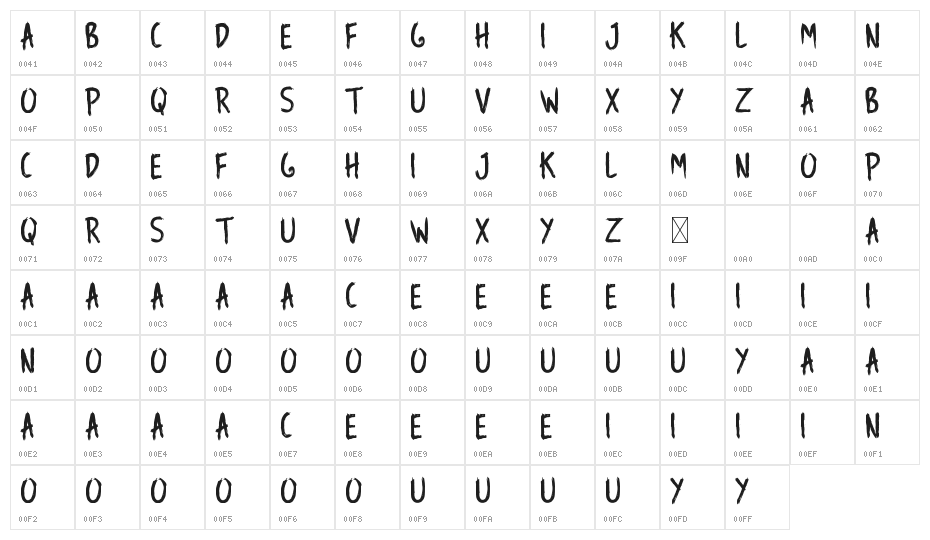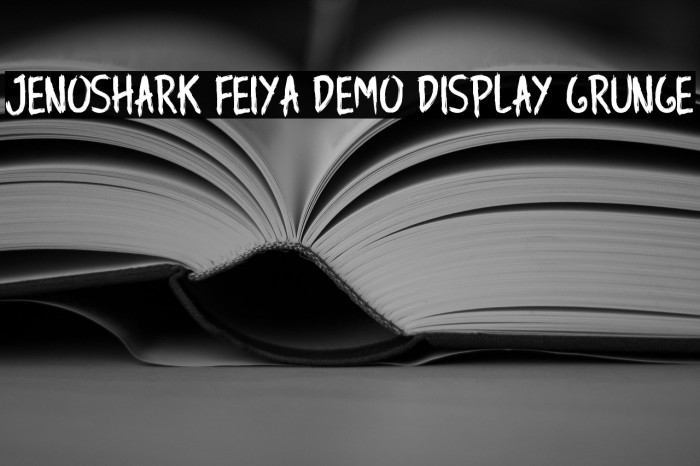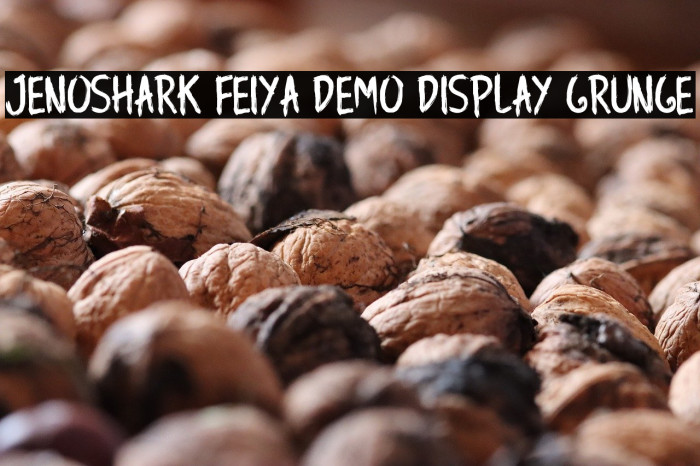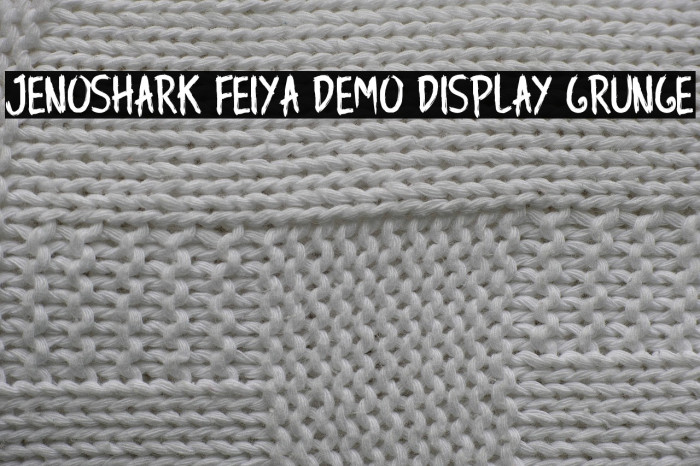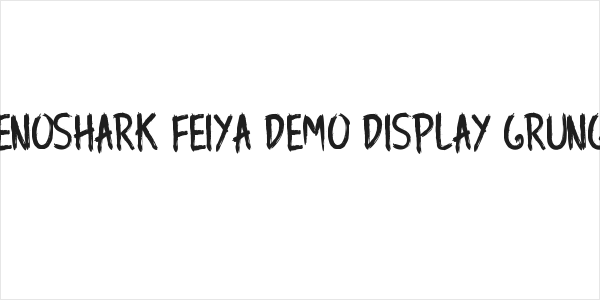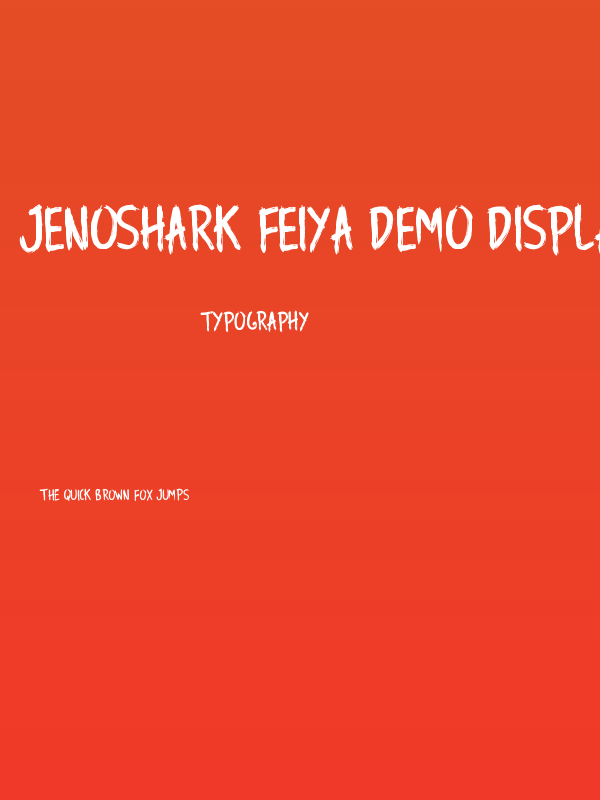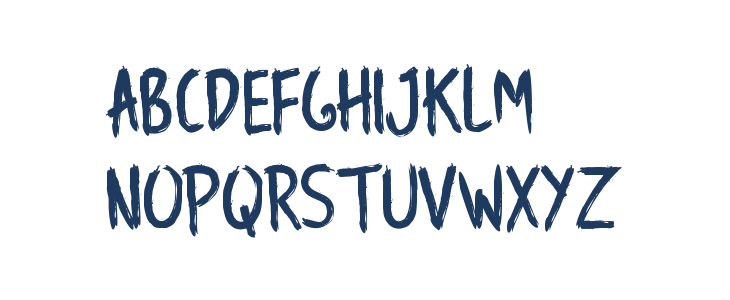
Jenoshark Feiya Demo Display Grunge Font
Jenoshark Feiya Demo Display Grunge Description
This font features a bold and expressive style with a grunge aesthetic. The characters exhibit a hand-drawn appearance, with uneven strokes and a rough texture that adds a sense of dynamism and energy. The uppercase letters are prominent and impactful, making them suitable for attention-grabbing headlines or titles. The font's irregularities and distressed look give it a unique personality, ideal for projects that require a raw and edgy feel. The overall design is both artistic and rebellious, making it perfect for creative and unconventional applications.
| Overall Style | Grunge, Artistic |
| Proposed Projects | Ideal for album covers, posters, streetwear branding, and edgy graphic designs. |